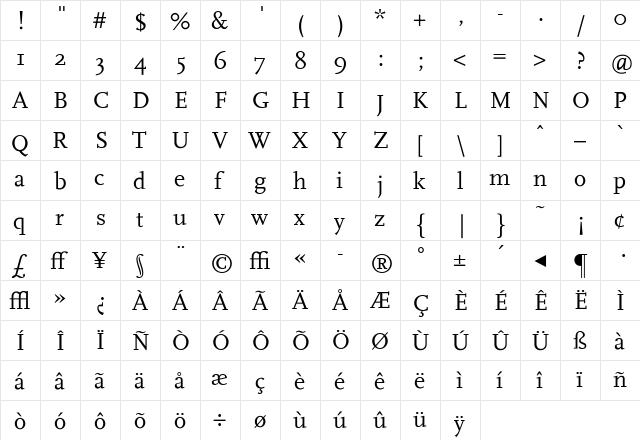
Scala Medium Font Preview
Scala Medium
Design Context for Scala Typeface
Scala offers clean, dependable letterforms without strong stylistic allegiance, making it a practical choice for designers who need flexibility.
Pro Tip: Use Scala in both headline and body roles to test its range before committing to a single application.